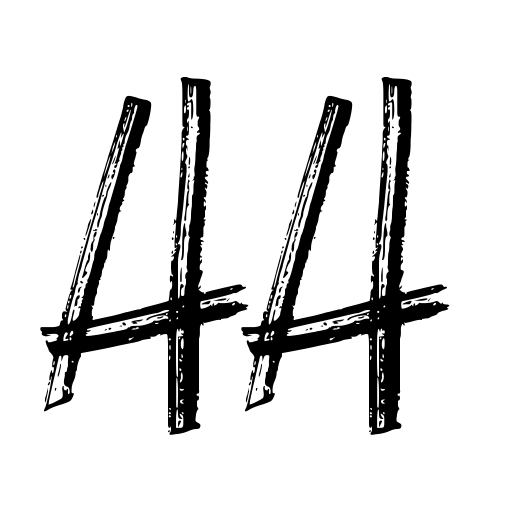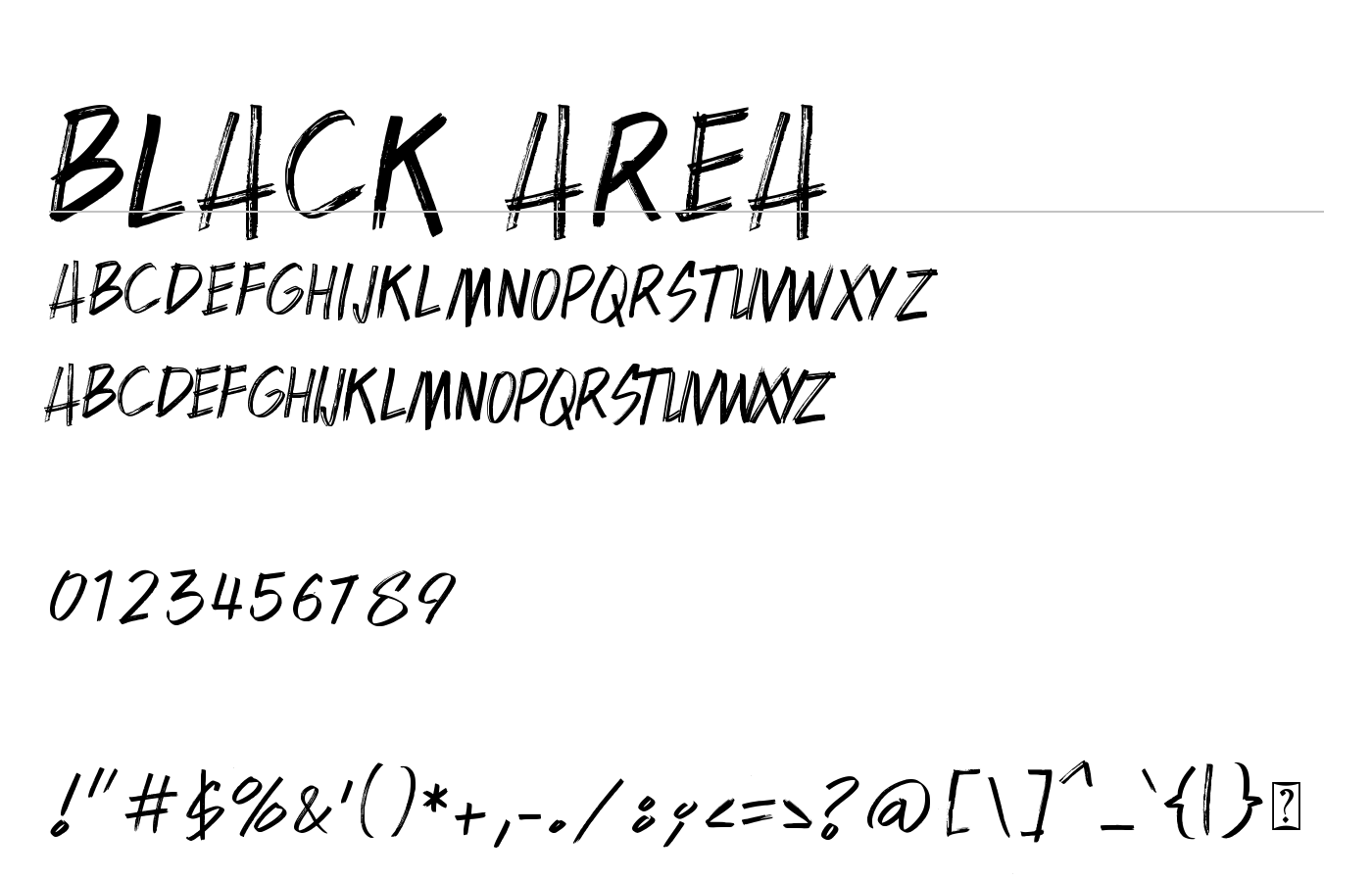
BLACK AREA is an energetic and bold handwritten sans serif font that features sharp, textured strokes creating a dynamic, slightly rough look. Its tall, narrow characters and irregular edges give it an expressive, edgy personality, perfect for designs seeking a raw, artistic vibe. This font works wonderfully for posters, logos, and creative branding that want to stand out with a spontaneous, handcrafted feel.
BLACK AREA Font
About BLACK AREA Font
| Designer | Letterara 2019 |